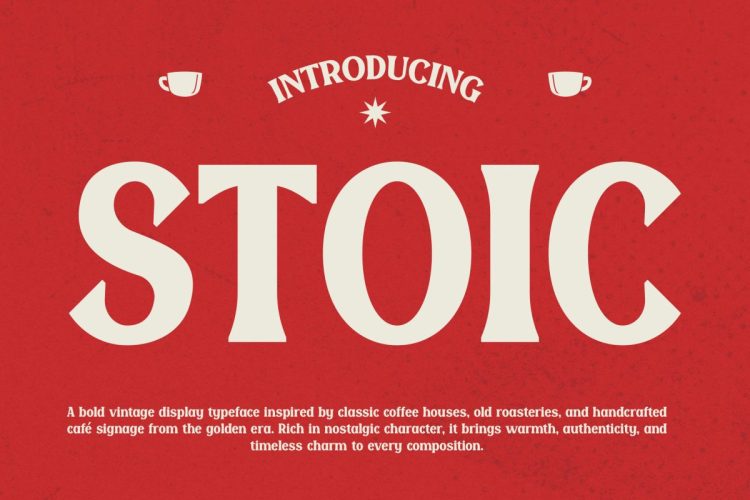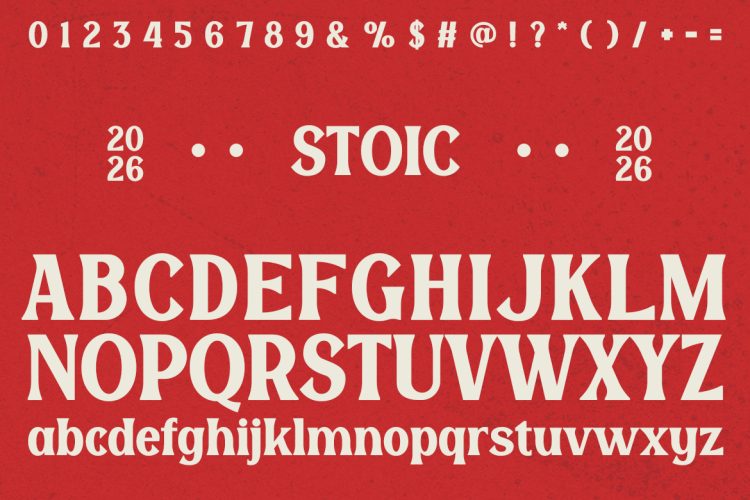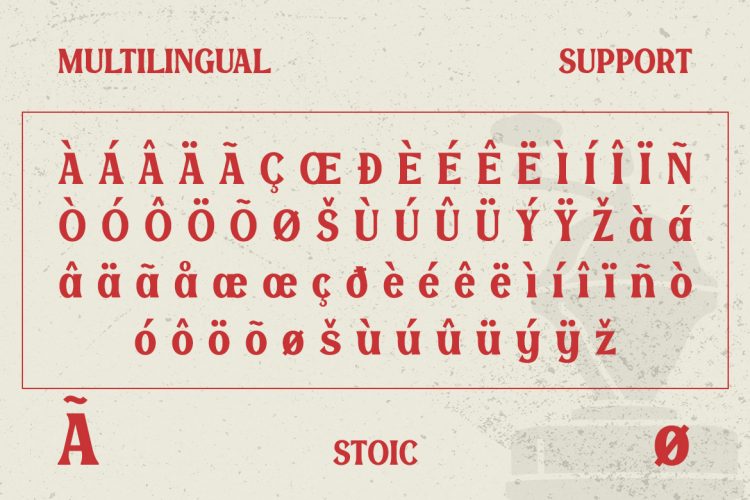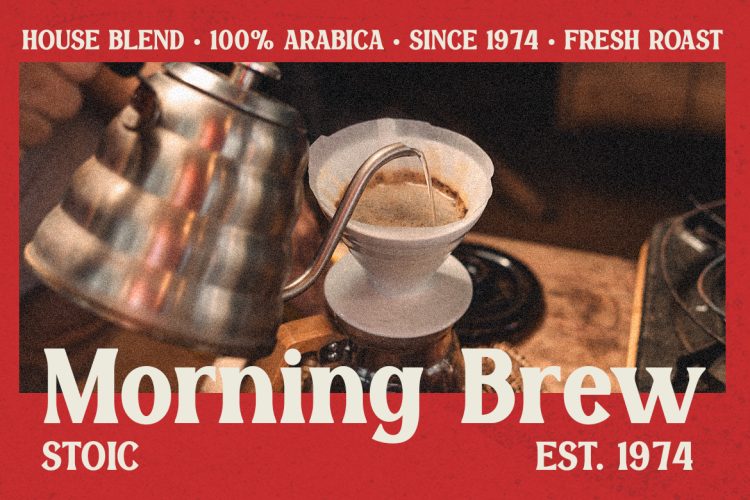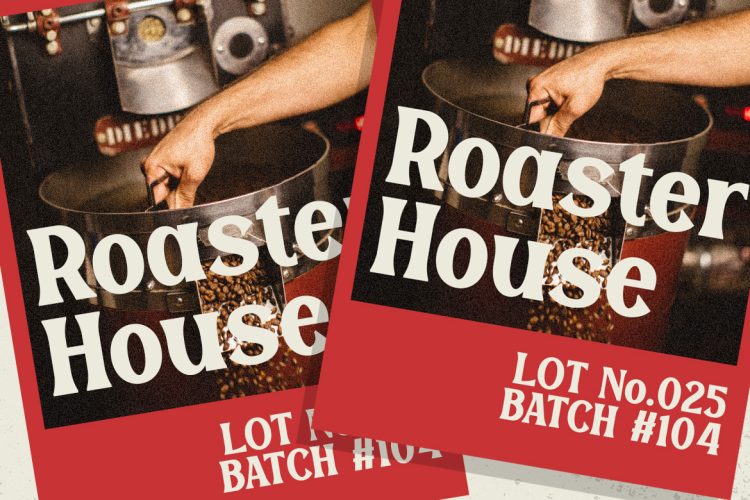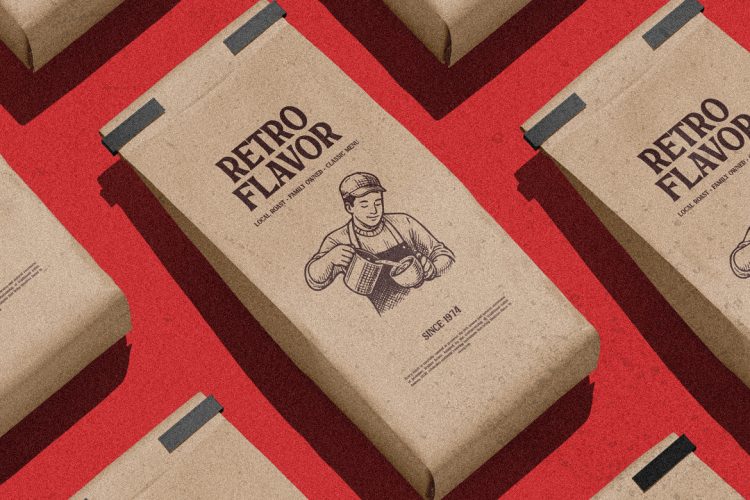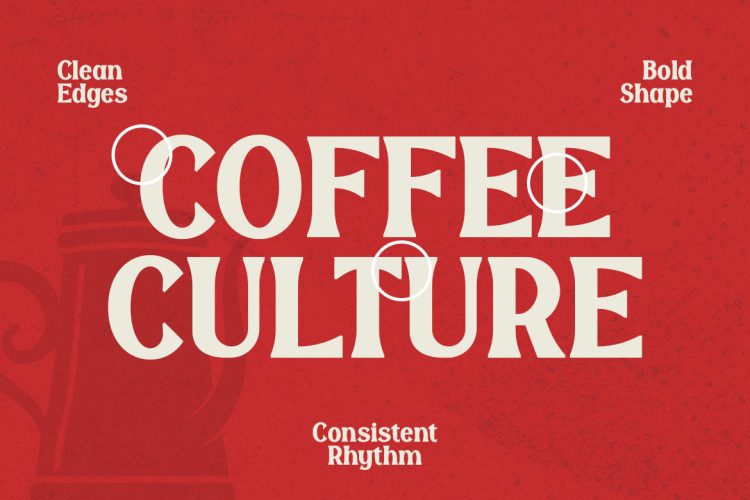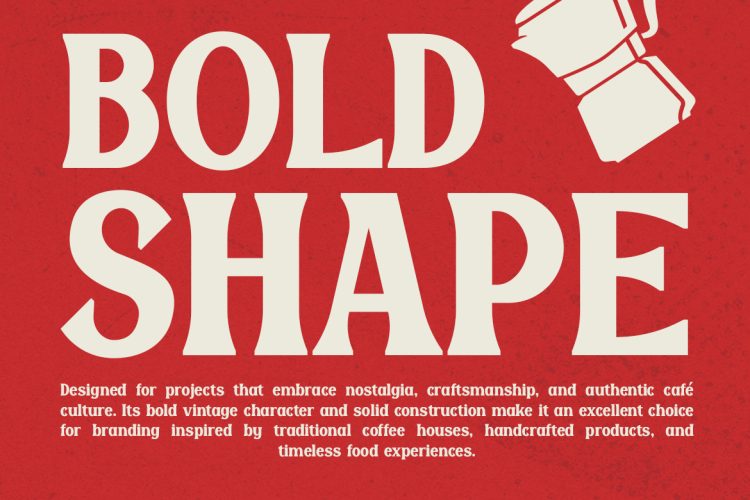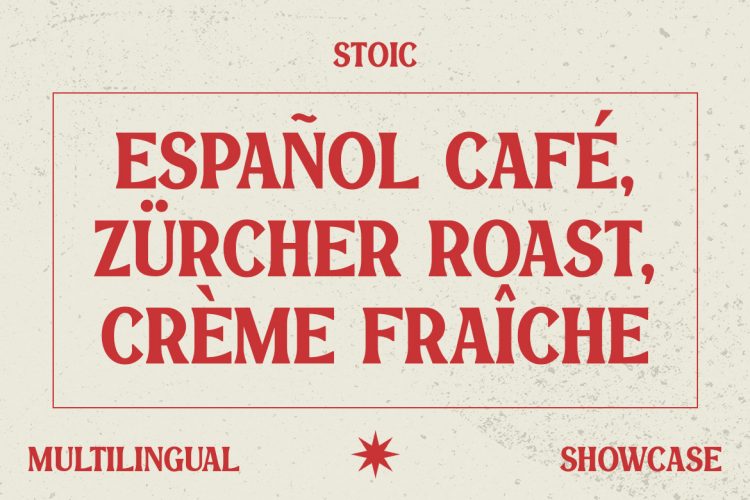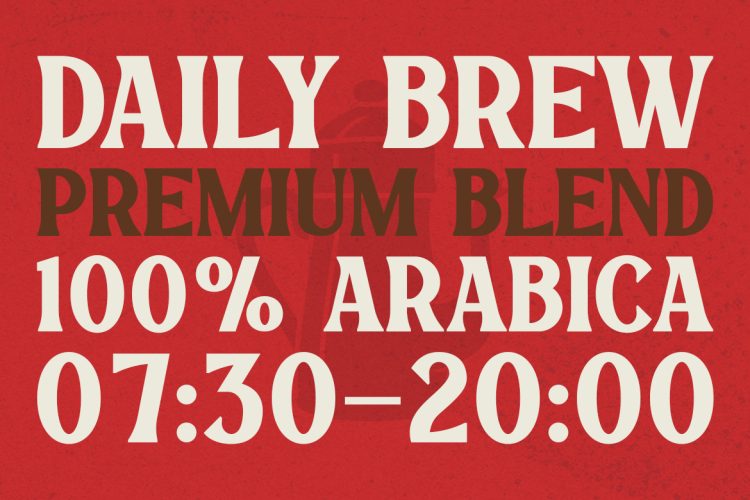
STOIC โ Classic Strength with Timeless Vintage Character
Retro Font STOIC combines bold vintage letterforms with refined classic details to create typography that feels strong and unforgettable. Inspired by traditional coffee houses and heritage branding, it delivers a timeless personality with excellent readability. Moreover, its balanced proportions create clean and confident headlines. At the same time, the handcrafted details add warmth and authenticity. As a result, every design feels more distinctive and memorable. Whether you are creating packaging, branding, or editorial layouts, STOIC adds classic character with ease. In addition, its bold style works beautifully in both print and digital media. Furthermore, it includes Multilingual Support for 67 languages, allowing you to design for global audiences. Therefore, you can build consistent branding across different languages with confidence. Likewise, its vintage charm blends effortlessly with modern layouts and minimalist compositions.
Retro Font STOIC Perfect For
- Coffee & Cafรฉ Branding โ Coffee shops, roasteries, cafรฉs, bakeries, restaurants, and artisan food brands.
- Packaging & Labels โ Coffee bags, gourmet products, specialty foods, beverage labels, and handcrafted packaging.
- Editorial & Print โ Magazines, menus, cookbooks, posters, book covers, flyers, and promotional materials.
- Modern Marketing โ Social media graphics, website headers, advertising campaigns, merchandise, and branding presentations.
- Made For graphic designers, branding studios, publishers, small businesses, coffee entrepreneurs, and creative professionals looking for a vintage display font with worldwide language support.
Brew Timeless Typography